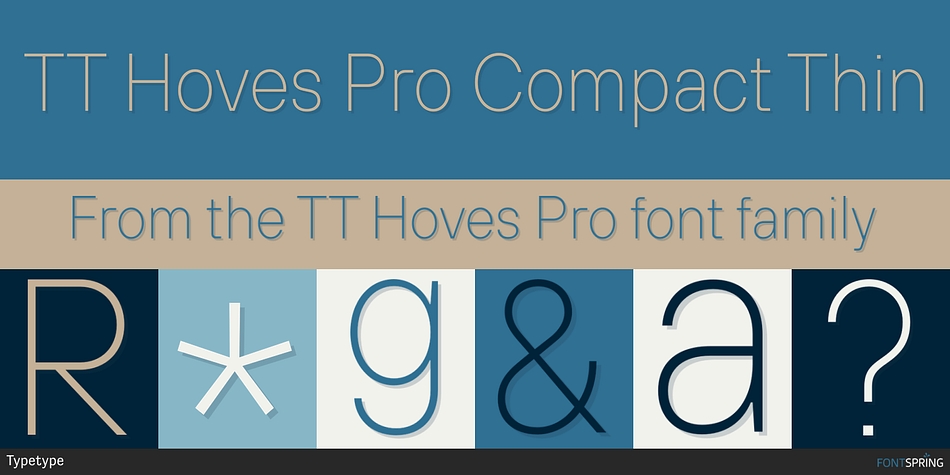
TT Hoves Pro Compact Thin
Designed by Ivan Gladkikh, TypeType Team and Pavel Emelyanov, TT Hoves Pro is a sans serif font family. This typeface has eighty-three styles and was published by Typetype.
TT Hoves Pro is the studio’s bestseller, one of the top three universal sans serifs along with TT Norms® Pro and TT Commons™️ Pro.
TT Hoves Pro has a neutral yet recognizable character suitable for use in any modern project. The font has a large character set, including extended Cyrillic and Latin, as well as a large number of styles.
Updated TT Hoves Pro:
supports more than 200 languages, including Vietnamese;
contains 4 widths: Compact, Normal, Condensed, Expanded;
consists of 83 styles, 20 of which are new Compact fonts;
includes upright and italic Outline fonts, each with 672 characters;
contains an improved variable font that varies in weight, width and slope;
includes 1573 characters in each style, except for Outline versions;
contains 41 OpenType features, including many ligatures and stylistic alternatives.
The geometry of the TT Hoves Pro has remained unchanged. The font lacks pronounced contrast, all terminals are on the same level, and there are wide horizontal strokes in triangular characters.
TT Hoves Pro is ideal for web design and use in applications. Perfect for branding, packaging design and printing.